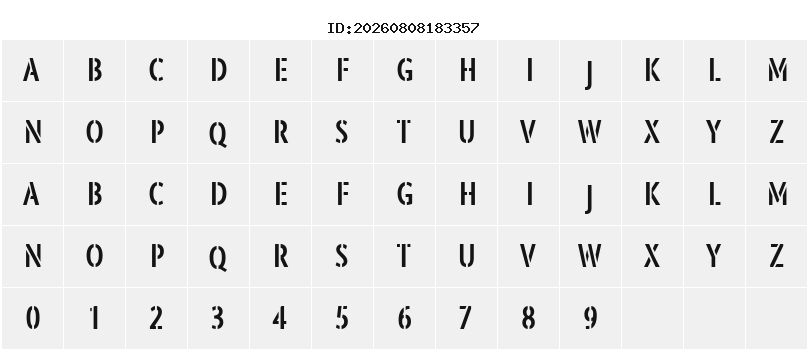
Platoon Preview
• Font Name: Platoon
• Full Font Name: Platoon Bold
About Platoon.ttf
Platoon.ttf is a modern, elegant sans-serif font designed for ultimate readability and visual harmony. Perfect for branding, headlines, web design, and print materials.